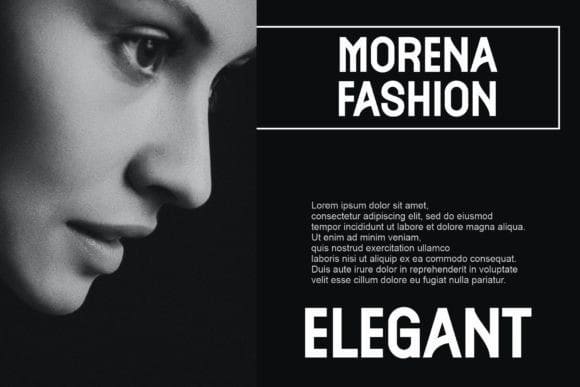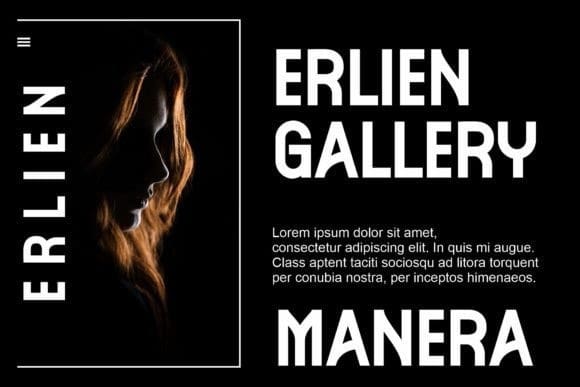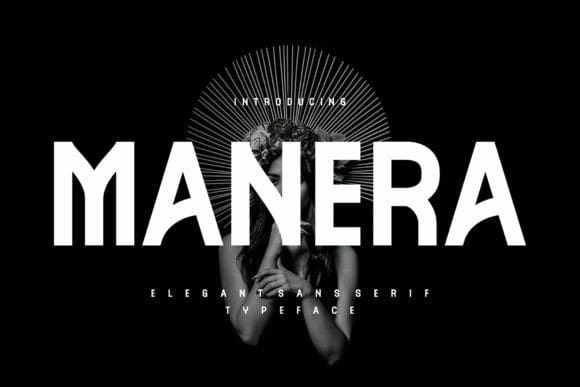
Manera Font
Manera Font – Modern Sans Serif Typeface inspired by the famous minimalist logo perfect for the purposes of designing templates, brochures, videos, advertising branding, logos, invitations, layout design, elegant crafting, beauty design, and others.